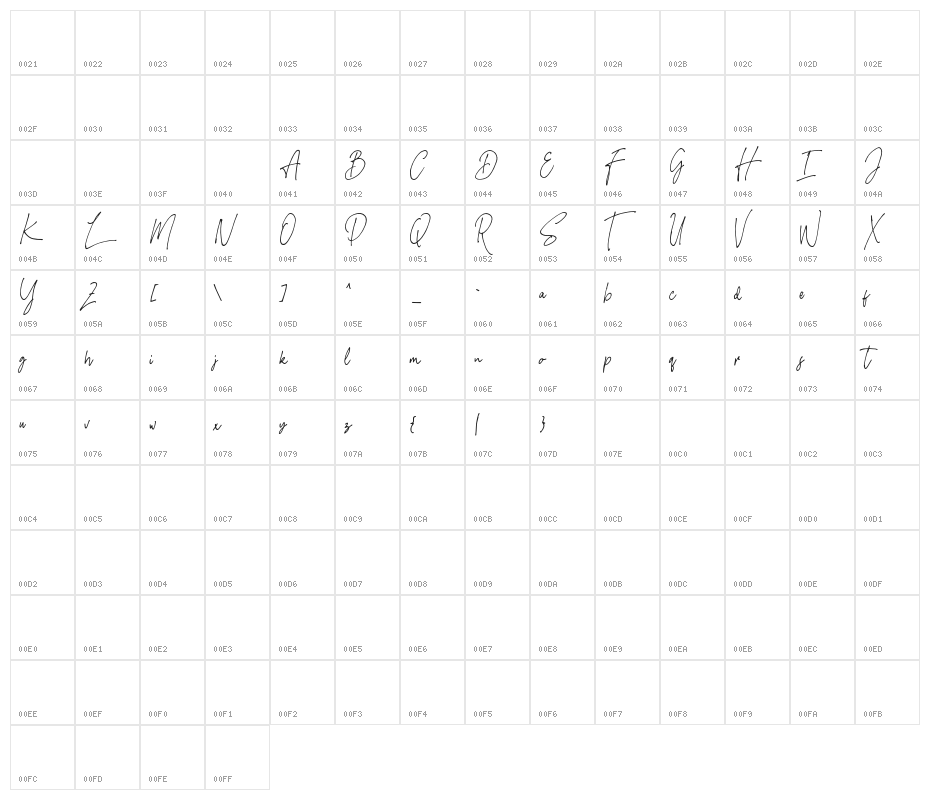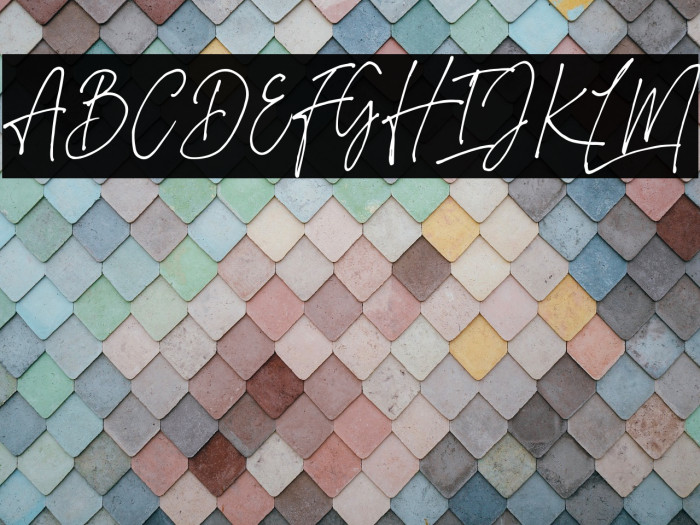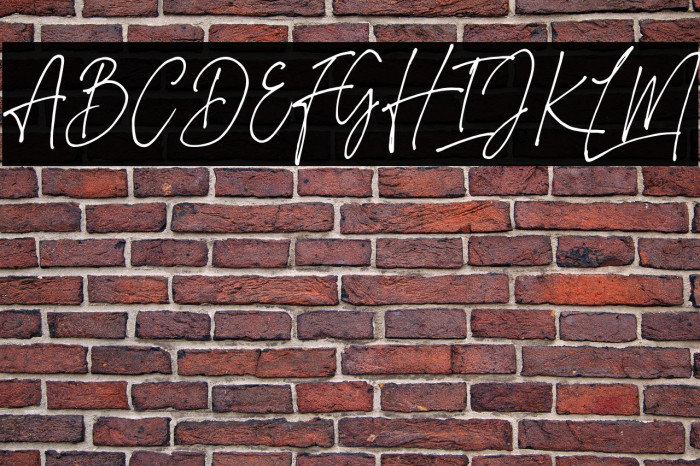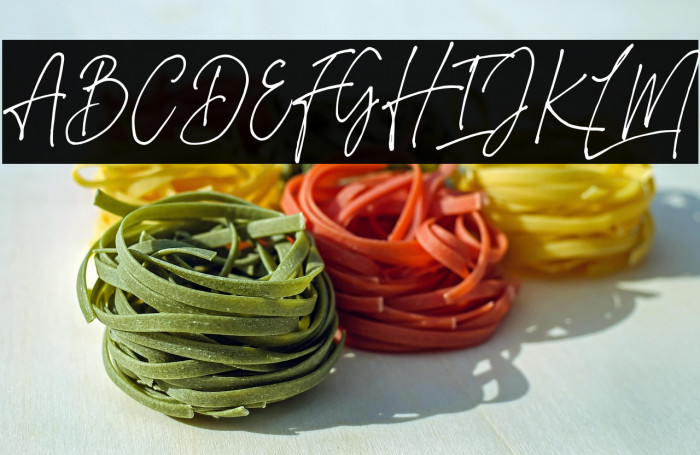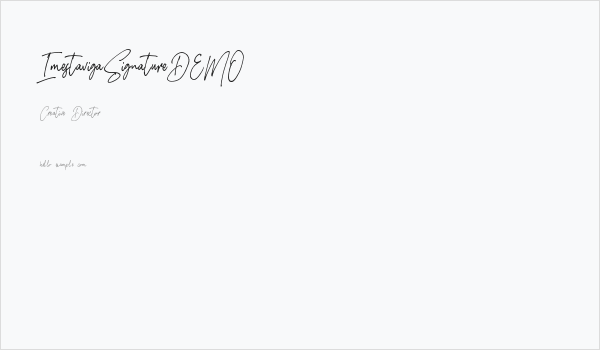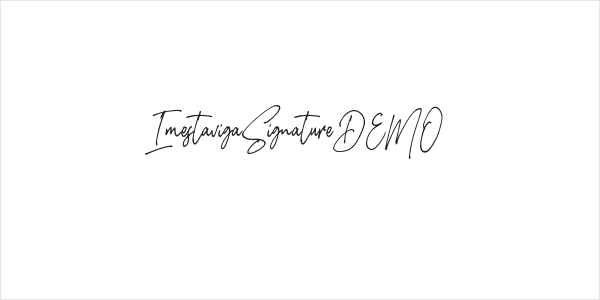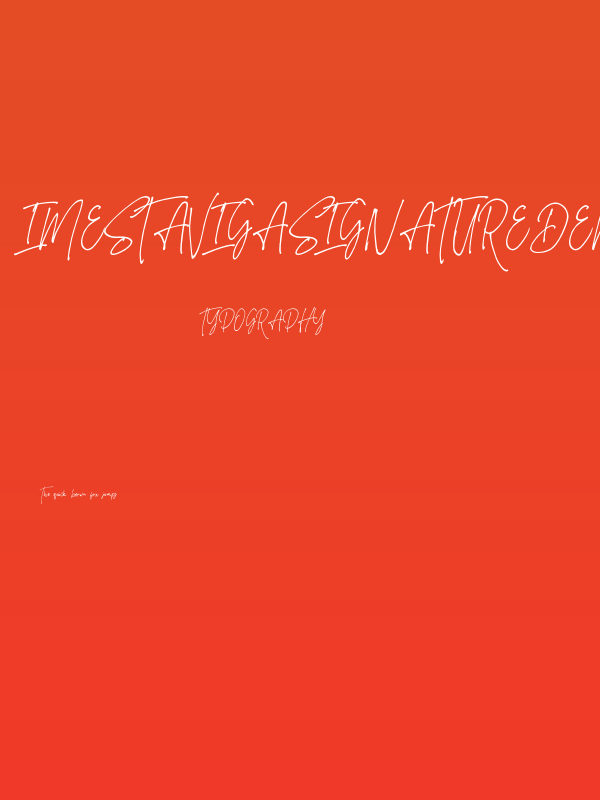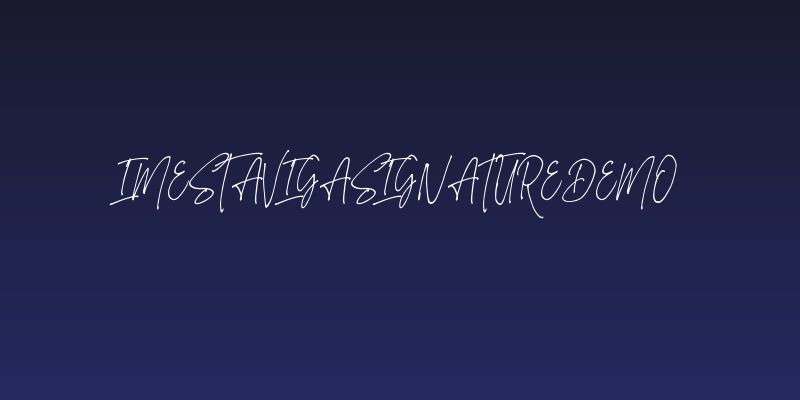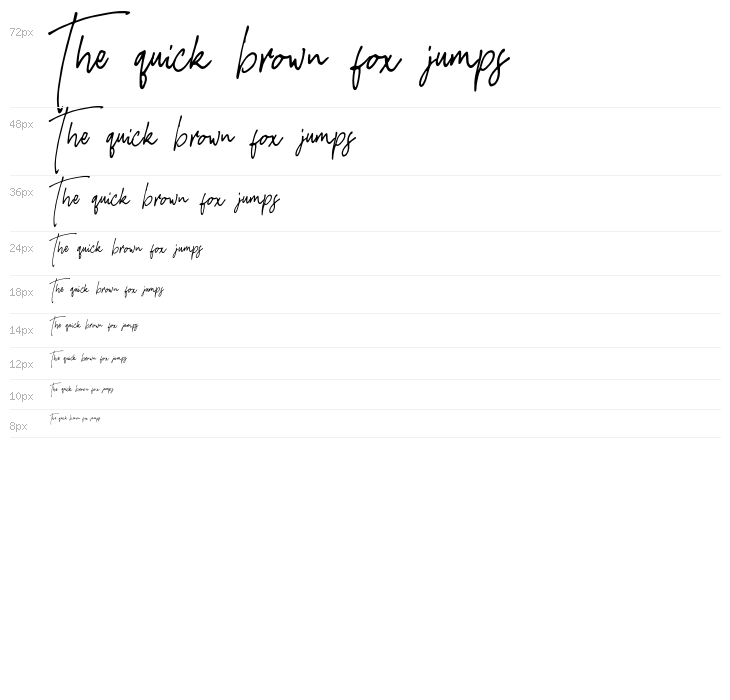
ImestavigaSignatureDEMO Font
ImestavigaSignatureDEMO Description
This font features a flowing, cursive style that mimics the elegance of a handwritten signature. The uppercase letters are tall and slender, with graceful loops and curves that add a touch of sophistication. The lowercase letters maintain a consistent flow, with smooth connections between each character, creating a seamless and natural appearance. The overall design is both stylish and legible, making it suitable for a variety of creative applications. The font's thin strokes and delicate lines give it a light and airy feel, while the slight slant adds a dynamic and lively touch.